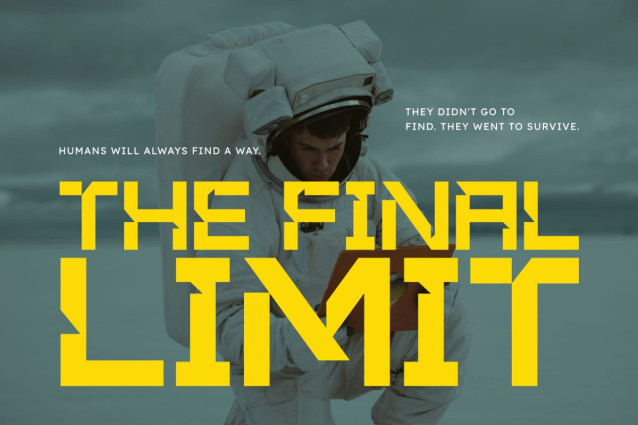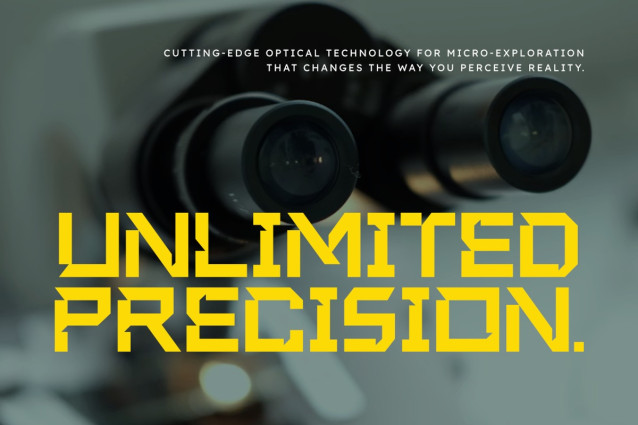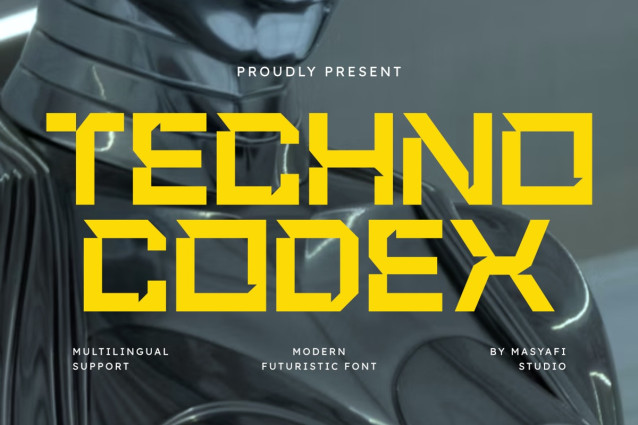
Techno Codex Font
Techno Codex Font a cutting-edge futuristic font from Masyafi Studio. This typeface is a fusion of mechanical precision and aggressive styling, built for brands that aren’t afraid to be bold and forward-thinking.
Whether you’re crafting the next big eSports tournament identity, designing a sci-fi movie poster, or building a high-tech app interface, Techno Codex provides the grit and sophistication needed to dominate the screen. Its heavy, solid architecture makes it a powerhouse for any display use.